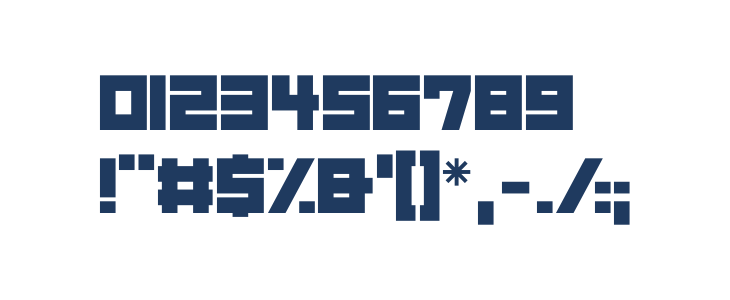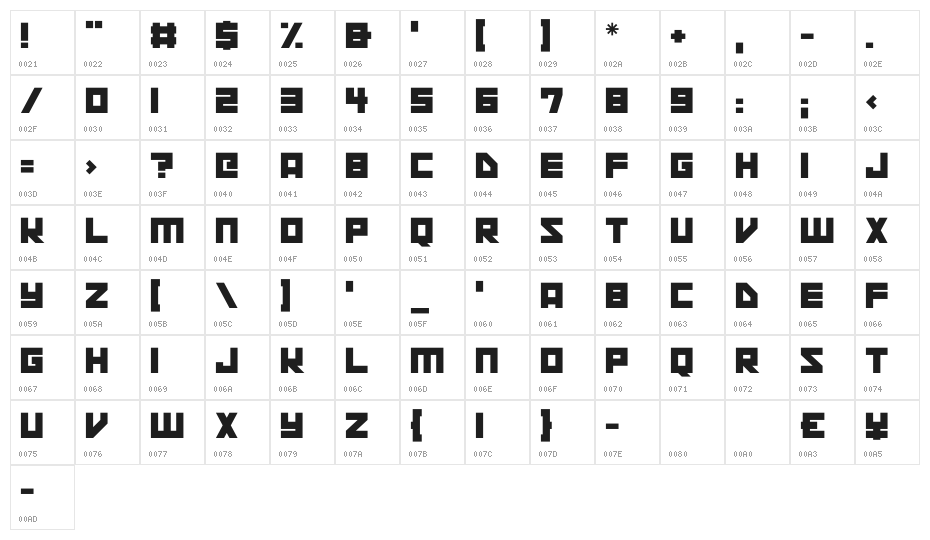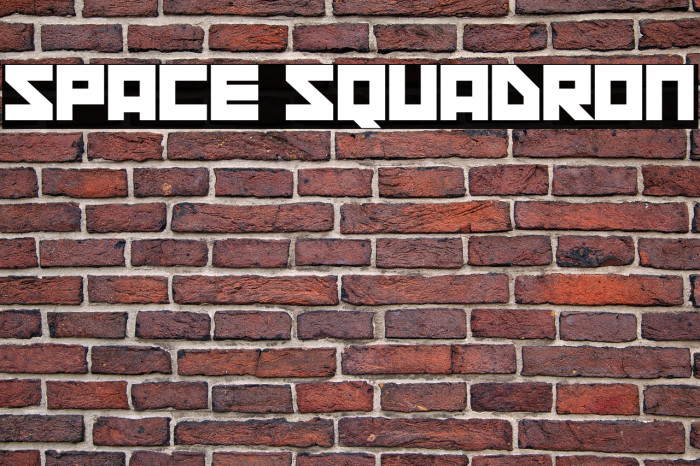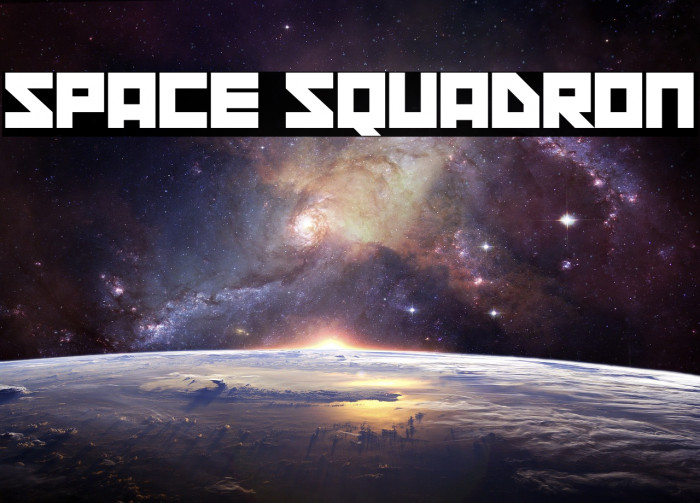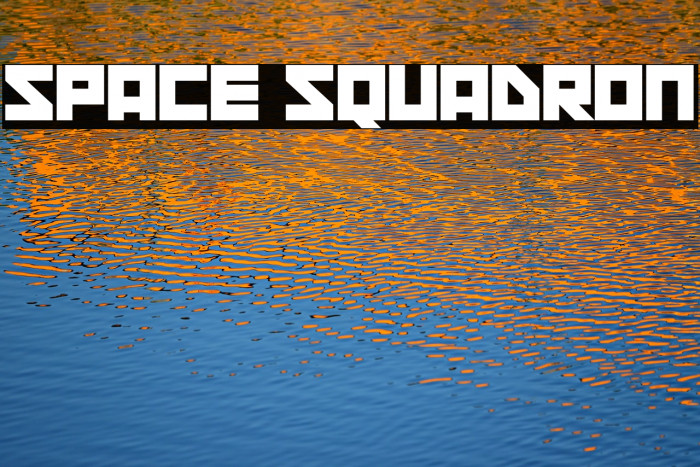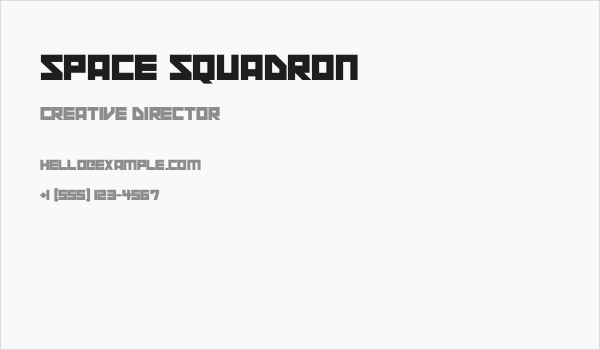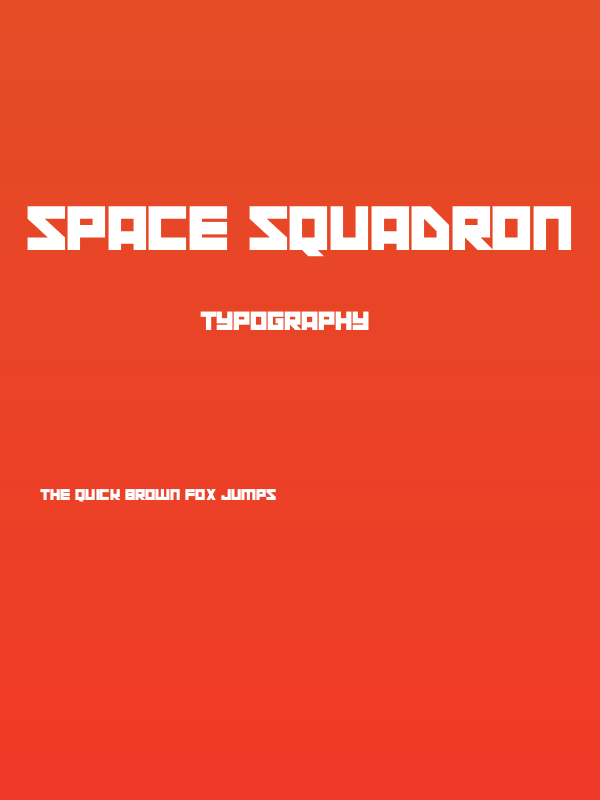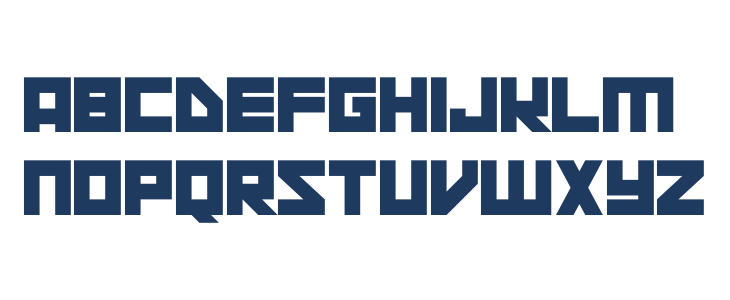
Space Squadron Font
Space Squadron Description
This font features a bold, futuristic design with strong geometric shapes and sharp angles, reminiscent of science fiction and space-themed aesthetics. The uppercase letters are blocky and robust, with a consistent height and width, creating a uniform appearance. The lowercase letters maintain the same boldness, ensuring readability while adding a touch of uniqueness with their angular cuts. Numbers are equally bold and geometric, fitting seamlessly with the overall style. The special characters are designed to match the bold, angular theme, making them suitable for a variety of creative uses. The font's design is ideal for projects that require a modern, tech-inspired look, such as video game titles, movie posters, or branding for technology companies.